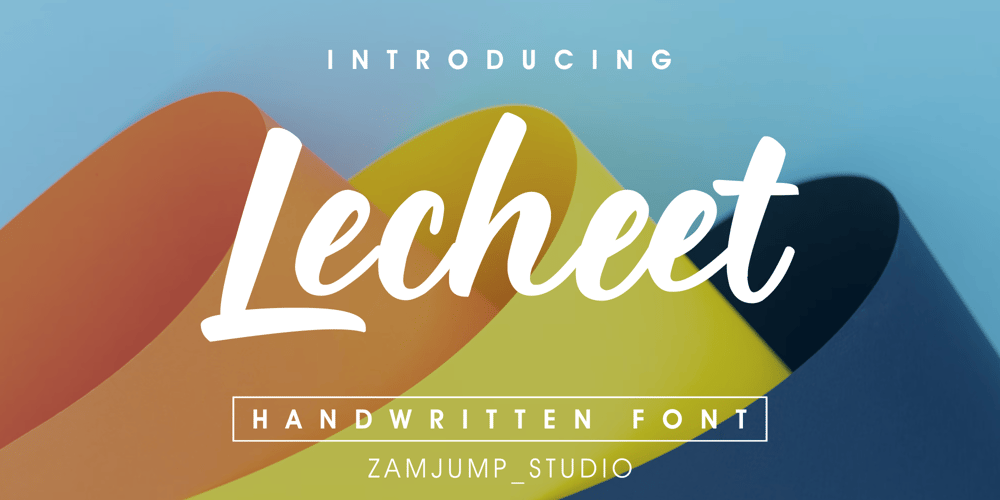
Lecheet Font Family was designed by Zamjump and published by Zamjump. Lecheet contains 1 styles and family package options. Lecheet is a handwritten script font. It has an authentic modern calligraphy look and feels bold which makes it perfect for digital branding and design.Use this font for logos, social media, wedding decorations, invitations, home decor, websites, blogs, instagram, business cards, branding and more!